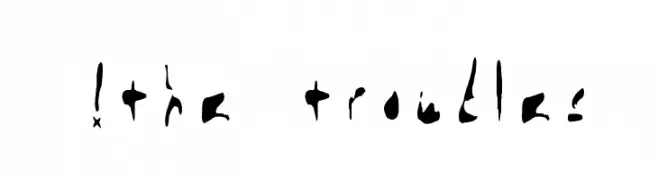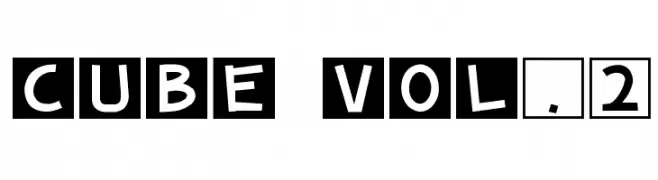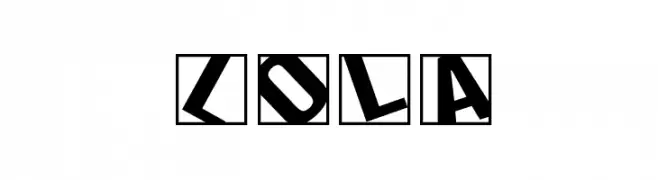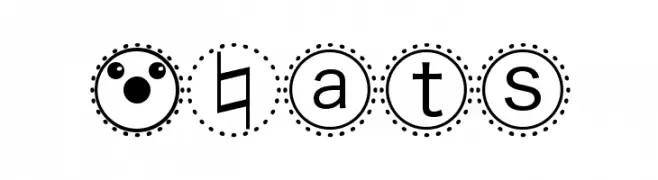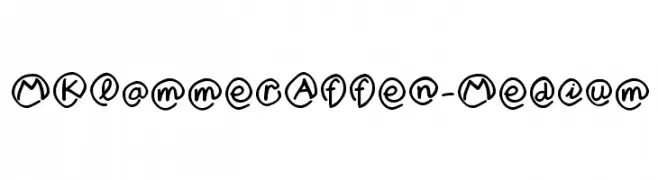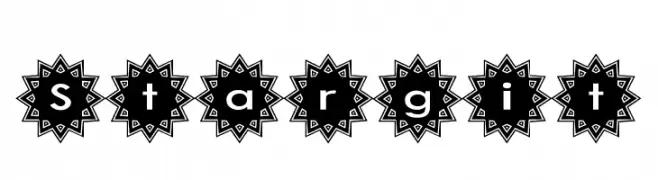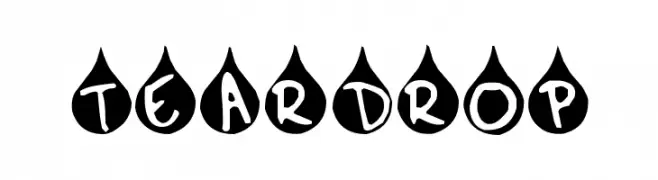
An abstract, hand-drawn font with irregular, brush-like letterforms enclosed in circular shapes.
A decorative font with elongated, elegant letterforms enclosed in squares, featuring thin strokes and subtle curves.
A playful, hand-drawn font with characters enclosed in circles, offering a whimsical and bold style.
A playful, italicized font with characters enclosed in circles, offering a bold and whimsical style.
A playful font with characters enclosed in teardrop shapes, offering a whimsical and decorative style.
A bold, modern font with angular characters enclosed in squares.
A playful decorative font with characters and symbols enclosed in dotted circles.
A decorative font with characters enclosed in starburst shapes, offering a bold and playful look.